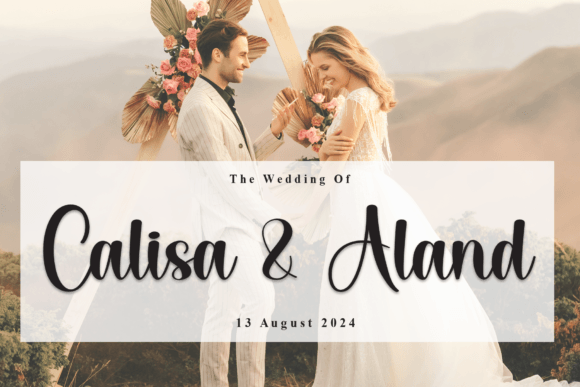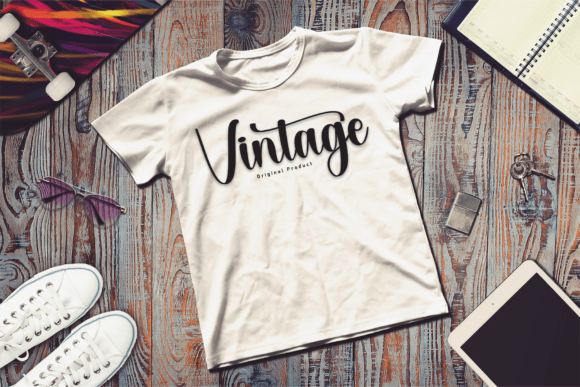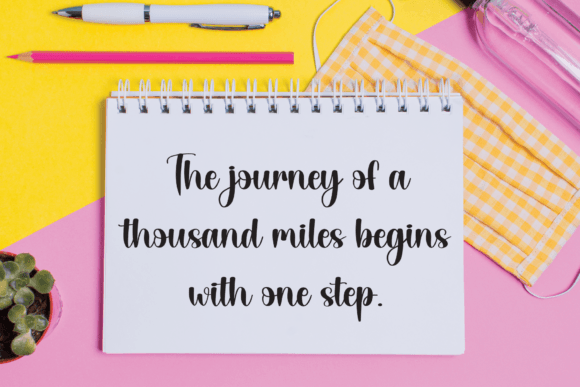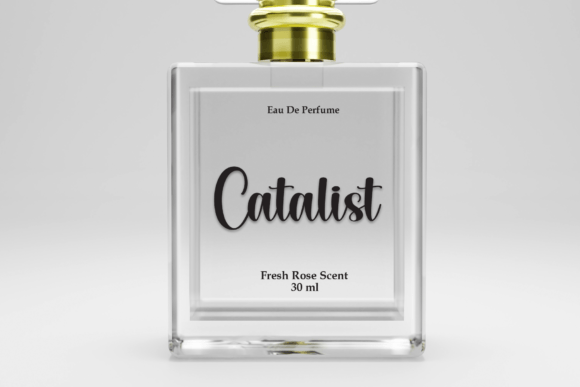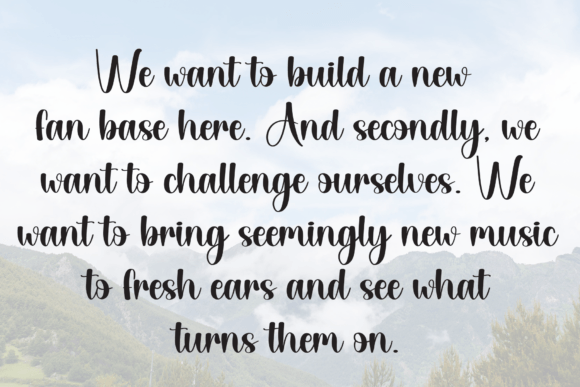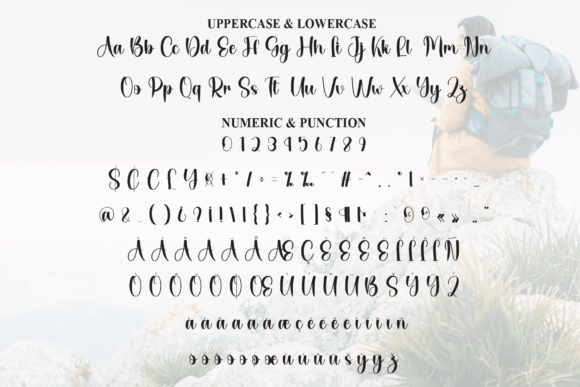
Introducing Adventure Font: Elevate Your Designs with Elegance and Charm
Are you a designer or crafter looking for a font that can add a touch of sophistication and whimsy to your projects? Look no further than Adventure Font, a stylish handwritten script font that exudes elegance and charm with its flowing, graceful curves. In this article, we’ll dive into the world of Adventure Font, exploring its features, uses, and benefits, and why it’s the perfect addition to your design toolkit.
The Allure of Adventure Font
Adventure Font is a beautiful, handwritten script font that is designed to bring a sense of luxury and refinement to your designs. Its delicate strokes and flowing curves create a sense of movement and fluidity, making it perfect for invitations, logos, branding, and any other project that requires a touch of elegance. Whether you’re designing a wedding invitation, a business logo, or a craft project, Adventure Font is the perfect choice.
Key Features of Adventure Font
- Handwritten Script Font: Adventure Font is a handwritten script font that is designed to look like it was written with a pen or pencil, giving it a personal and organic feel.
- Elegant and Refined: The font’s flowing curves and delicate strokes create a sense of elegance and refinement, making it perfect for high-end designs.
- Versatile: Adventure Font can be used for a wide range of projects, from invitations and logos to branding and craft projects.
- Easy to Read: Despite its elegant and refined appearance, Adventure Font is easy to read, making it perfect for body text and headlines.
Uses for Adventure Font
Adventure Font is a versatile font that can be used for a wide range of projects, including:
- Invitations: Whether you’re designing a wedding invitation, a birthday party invitation, or any other type of invitation, Adventure Font is the perfect choice.
- Logos and Branding: Adventure Font can be used to create elegant and refined logos and branding materials that will help your business stand out.
- Craft Projects: If you’re a crafter, Adventure Font is a great choice for your projects, including handmade cards, gift tags, and other paper crafts.
- Digital Designs: Adventure Font can also be used for digital designs, including social media graphics, blog headers, and more.
Benefits of Using Adventure Font
There are many benefits to using Adventure Font in your designs, including:
- Unique and Eye-Catching: Adventure Font is a unique and eye-catching font that will help your designs stand out from the crowd.
- Elegant and Refined: The font’s elegant and refined appearance makes it perfect for high-end designs and luxury brands.
- Personal and Sophisticated: Adventure Font adds a personal and sophisticated touch to any design, making it perfect for invitations, logos, and branding.
Tips for Using Adventure Font
Here are a few tips for using Adventure Font in your designs:
- Use it Sparingly: Adventure Font is a elegant and refined font, so use it sparingly to avoid overwhelming your design.
- Pair it with Other Fonts: Adventure Font can be paired with other fonts to create a unique and eye-catching design.
- Experiment with Colors: Adventure Font looks great in a variety of colors, so experiment with different colors to find the one that works best for your design.
Adventure Font is a beautiful, stylish handwritten script font that exudes elegance and charm with its flowing, graceful curves. Perfect for invitations, logos, branding, and any other project that requires a touch of sophistication and whimsy, Adventure Font is a versatile font that can be used for a wide range of projects. With its delicate strokes, elegant appearance, and ease of use, Adventure Font is a great addition to any design toolkit.